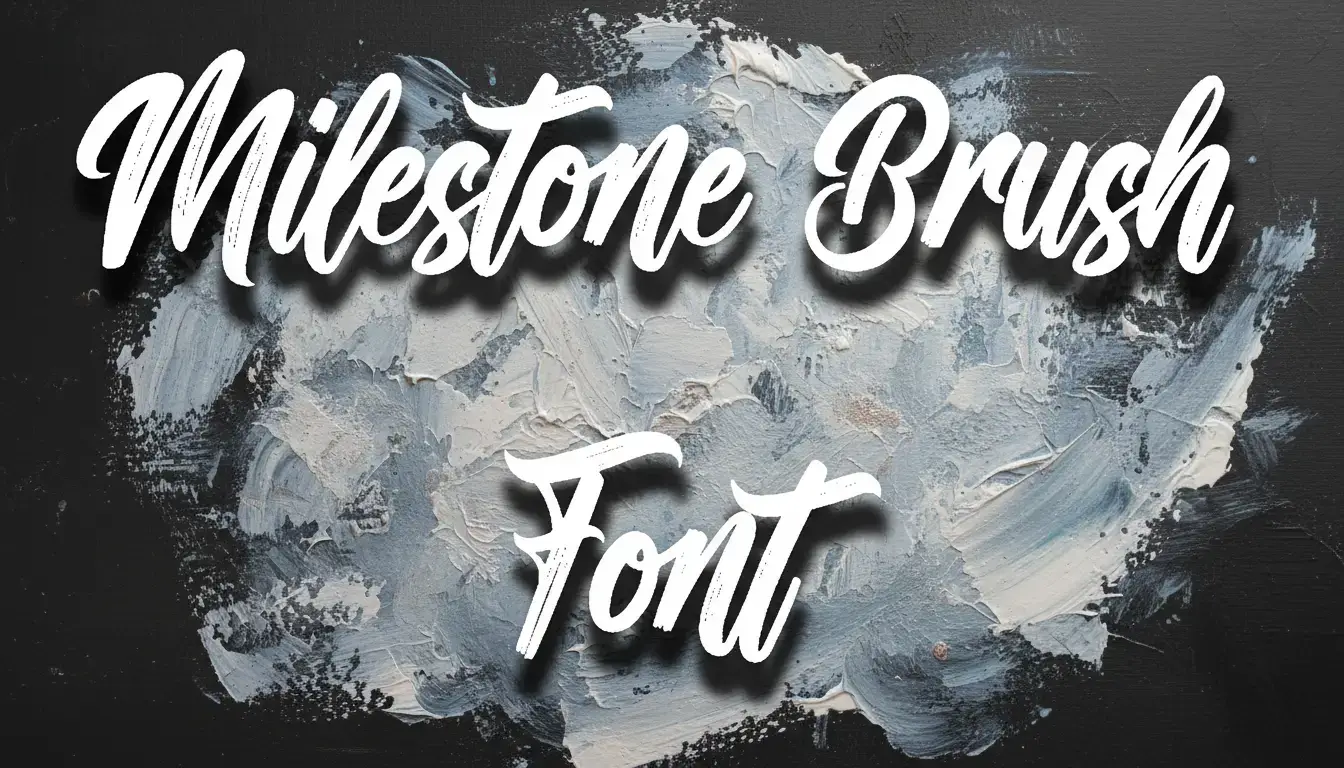
Milestone Brush Font
Milestone Brush
Milestone Brush is a script font, a good fit for wedding invitations, logos and signature-style headings. It was designed by Aveni Yuanita and is published by Aveni Letter Type (Aveni Yuanita).
It has a single Regular style with 180 glyphs.
Every letter from A to Z is here in both cases, and so are the digits 0–9. Common marks like &, !, ? and @ are included as well. It has the accented letters you need for Spanish, French, Portuguese and Italian, too.